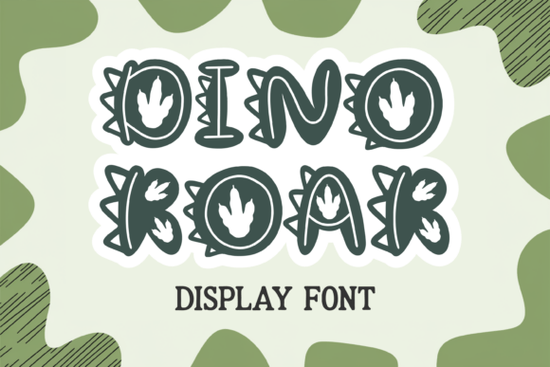
If you're working on a dinosaur-themed project whether it’s birthday invites for a 5-year-old dino fanatic, classroom decor for a prehistoric unit, or custom T-shirts for a kids’ party the Dino Roar Font brings just the right mix of boldness and playfulness. Its letters are designed with jagged edges and tiny embedded footprints that give every word a stomping, prehistoric personality without looking cluttered.
What makes this font stand out for themed projects?
Unlike generic display fonts, Dino Roar leans into its theme without sacrificing legibility. The spiky serifs and footprint details are subtle enough to read clearly at smaller sizes but still pack visual punch when scaled up for banners or wall art. It’s especially effective when paired with jungle greens, earthy browns, or vibrant primary colors.
For print-on-demand sellers, that balance is key: customers want designs that feel fun and thematic but not overwhelming. This font delivers exactly that ideal for mugs, onesies, tote bags, or even classroom name tags.
How does it compare to other playful display fonts?
If you’ve used fonts like Whimsy Wiggle or Cheer Font, you’ll notice Dino Roar has a more structured, bold presence less bouncy, more “roaring.” It’s not as delicate as Vila Valent, which leans romantic, nor as retro as Summer Vintage. Instead, it fills a specific niche: high-energy, kid-friendly, and thematically consistent.
That specificity is actually a strength. When your project demands a clear visual story like “dinosaur adventure” or “prehistoric explorer” using a font that matches that narrative reduces the need for extra graphics or clipart.
Best uses for Dino Roar Font
Here are real-world applications where this font shines:
- Kids’ birthday invitations – Pair with palm leaves or volcano illustrations for instant theme cohesion.
- Classroom posters – Use for vocabulary words like “T-Rex,” “fossil,” or “extinct” to engage young learners.
- Custom apparel – Works well on youth T-shirts with phrases like “Dino Squad” or “Jurassic Jr.”
- Party decorations – Print on banners, cupcake toppers, or favor bags for a cohesive look.
- Digital stickers – Great for planners or educational worksheets with a dino twist.
Because it includes SVG files, you can even layer colors within a single letter imagine green spikes with brown footprints for extra depth in digital or cut-file projects.
Tips for using it effectively
While Dino Roar is bold by nature, avoid overusing it. Stick to headlines, short phrases, or names. For body text or longer messages, pair it with a clean sans-serif like Arial or Helvetica to maintain readability.
Also, test your design at actual size before finalizing. Some intricate details (like the tiny footprints) may not show up clearly on very small items like keychains or pencil labels. But on anything larger than 1 inch tall, they add delightful character.
Before you start your next dino project, check this quick list:
- ✅ Pair with simple, complementary graphics less is more
With its unique details and wide format support, the Dino Roar Font is a reliable choice for anyone creating joyful, theme-driven designs that need to stand out without trying too hard.